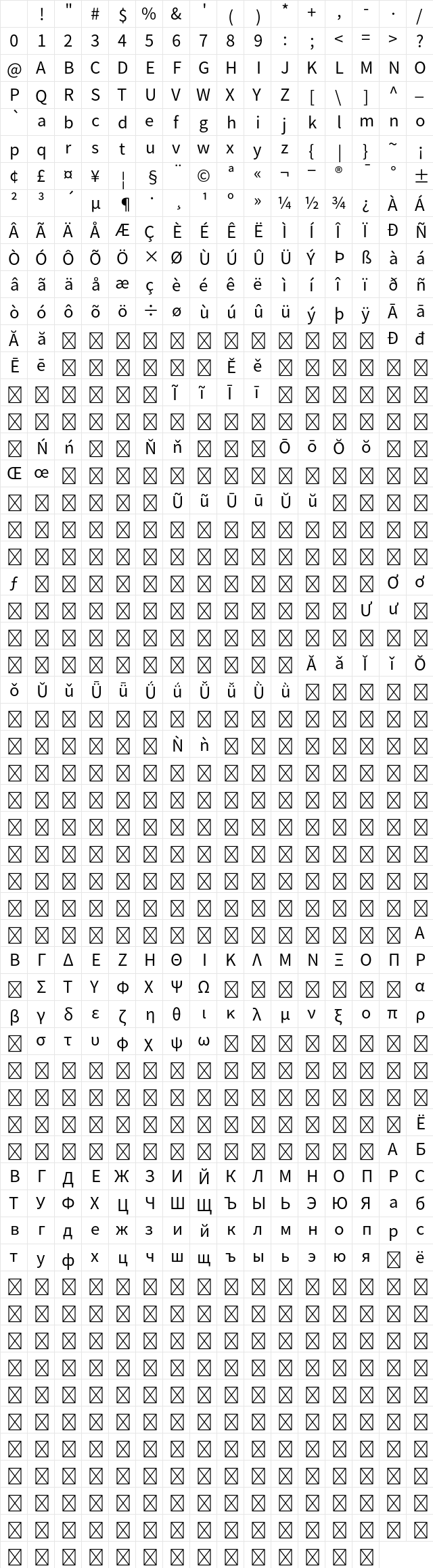
Complete Noto Sans CJK SC Regular glyph index. Displaying only characters natively supported by Noto Sans CJK SC Regular font.
Noto Sans CJK SC Regular is a composed and adaptable typeface that performs quietly and consistently across a wide range of design contexts.